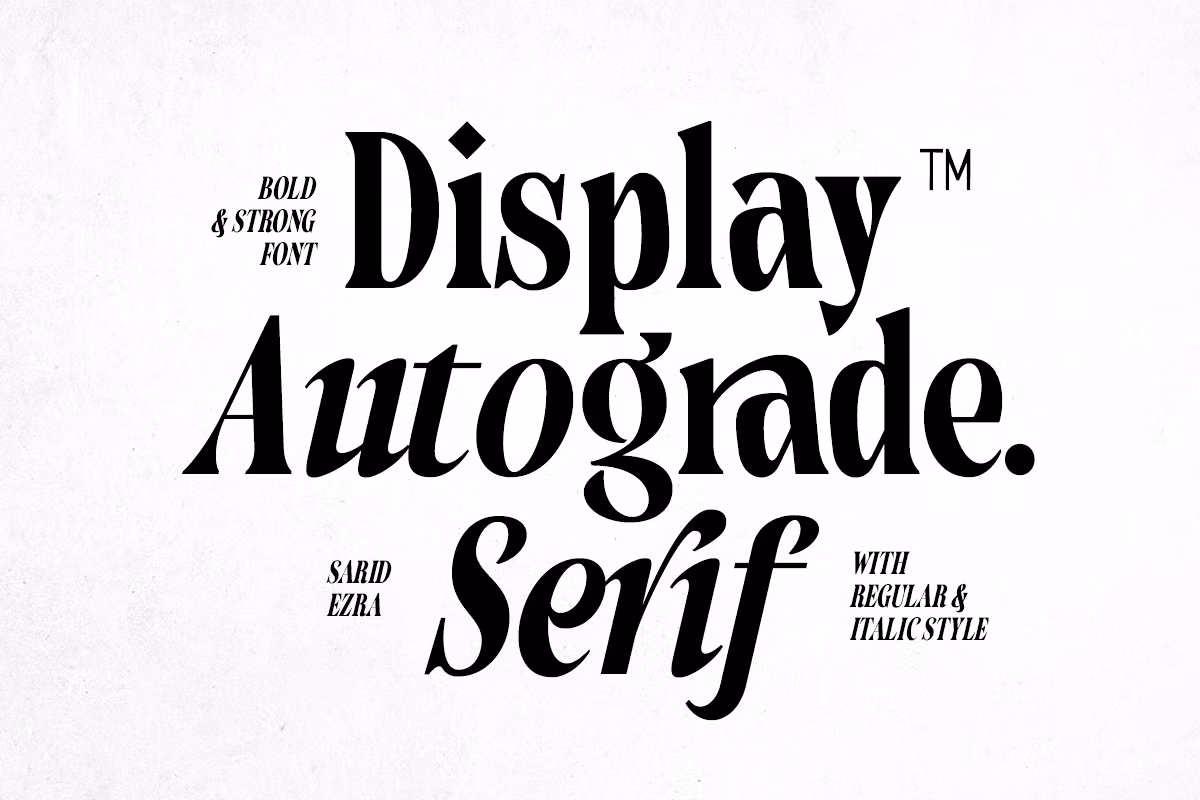
Autograde - Strong Bold Serif Font Free Download is a powerful and commanding serif typeface designed to make a bold impact in any design. Featuring thick, sharp serifs and a high-contrast design, this font is perfect for headlines, branding, logos, posters, and any project that requires a strong, authoritative presence.
The boldness and sharpness of Autograde make it ideal for projects that need to evoke strength, confidence, and sophistication. Whether you're designing for a luxury brand, a sports team, or a modern business, this font brings an undeniable sense of power to your typography.
Add strength and boldness to your designs with the powerful look of Autograde!